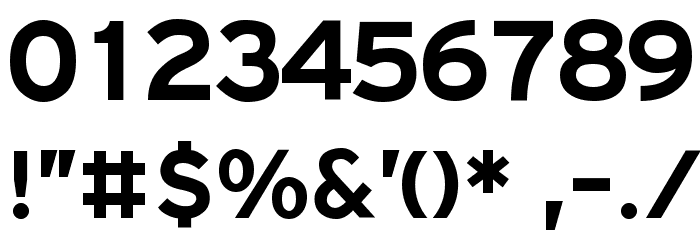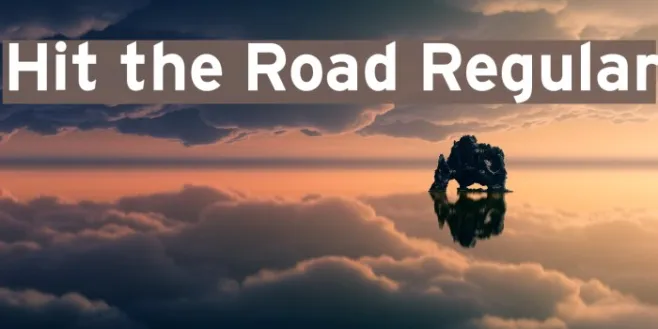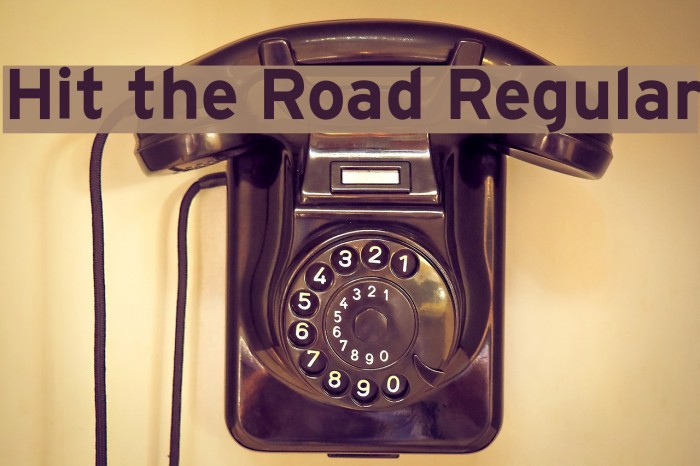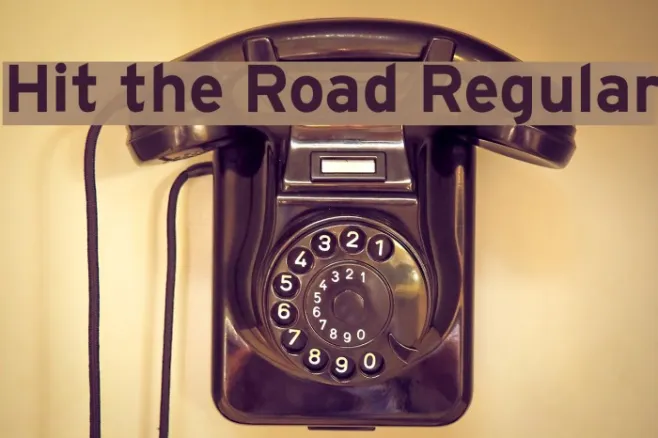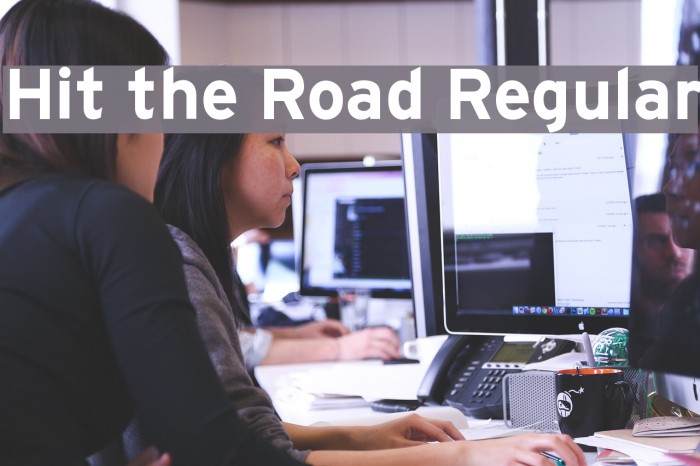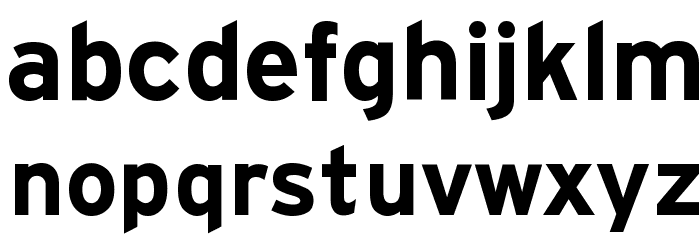
Hit the Road Regular Font
Hit the Road Regular Description
This font exhibits a bold and modern sans-serif style, characterized by clean lines and a strong presence. The uppercase letters are uniform in height, providing a consistent and balanced appearance. The lowercase letters maintain a similar width, ensuring readability and a cohesive look. The numerals are clear and distinct, making them suitable for various applications. Special characters are well-defined, adding versatility to the font. Overall, this typeface is designed for impact and clarity, making it ideal for attention-grabbing headlines and modern design projects.
| Use Case | Headlines, Logos, Advertising |
| Proposed Projects | Ideal for branding, advertising, headlines, and digital media projects. |